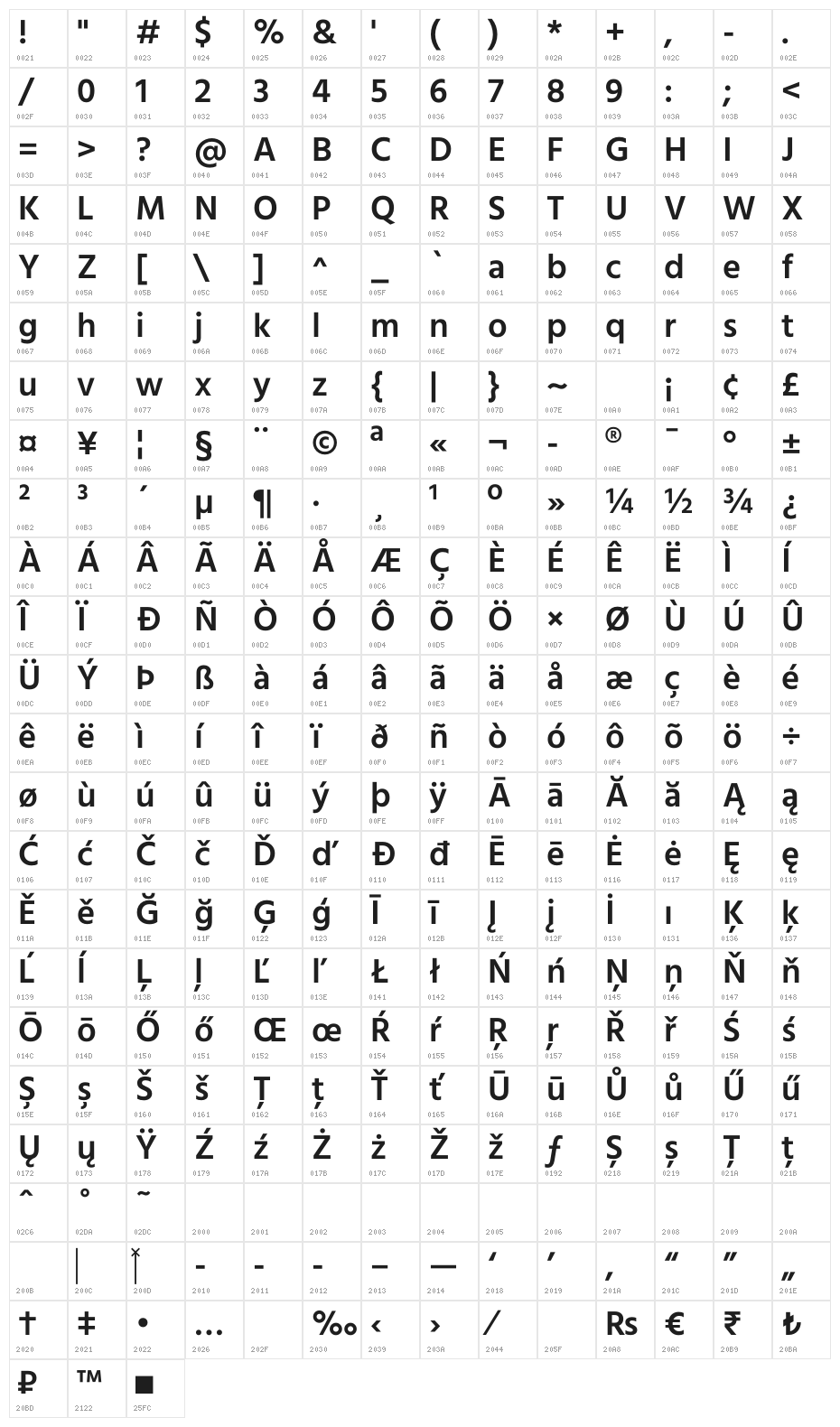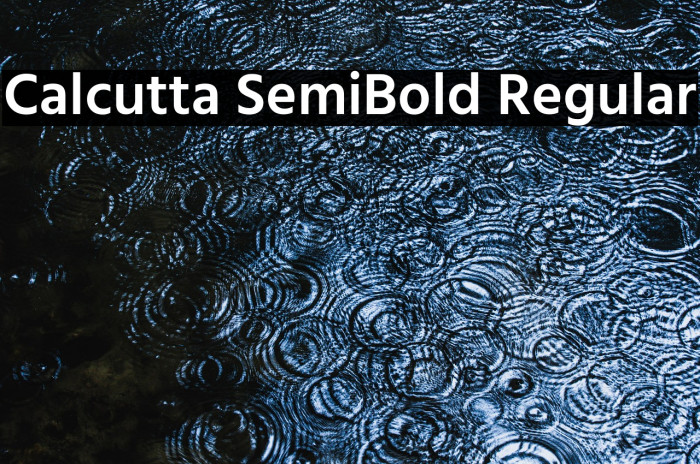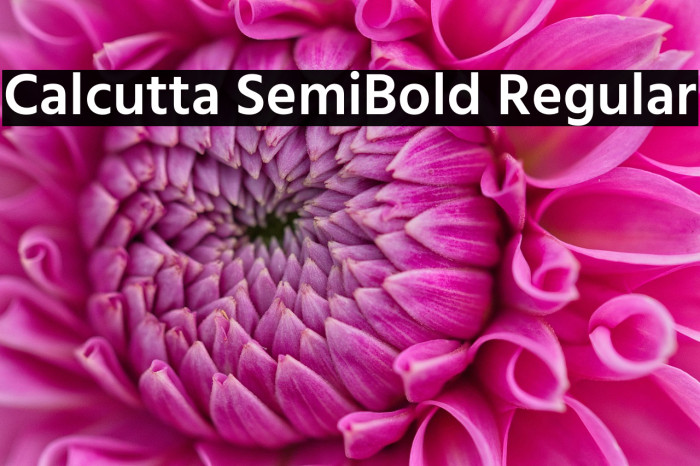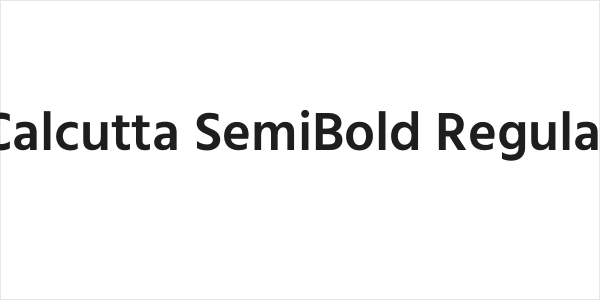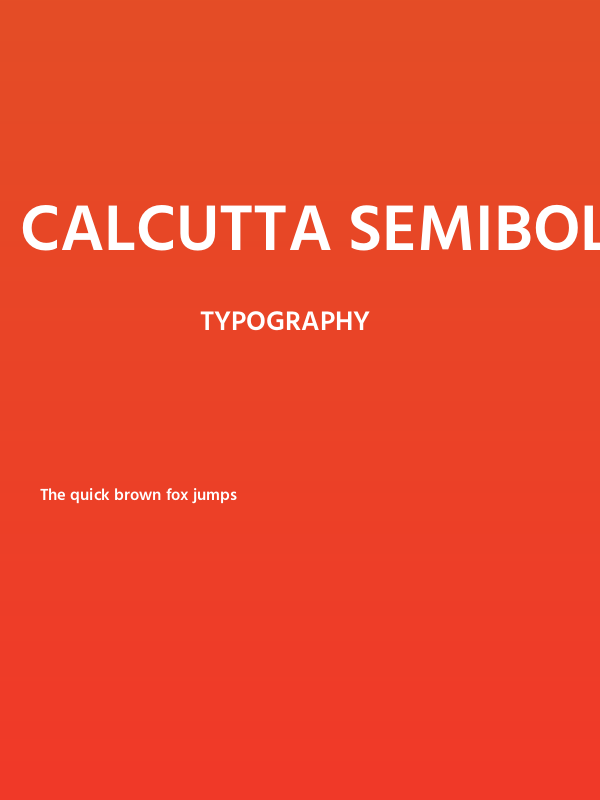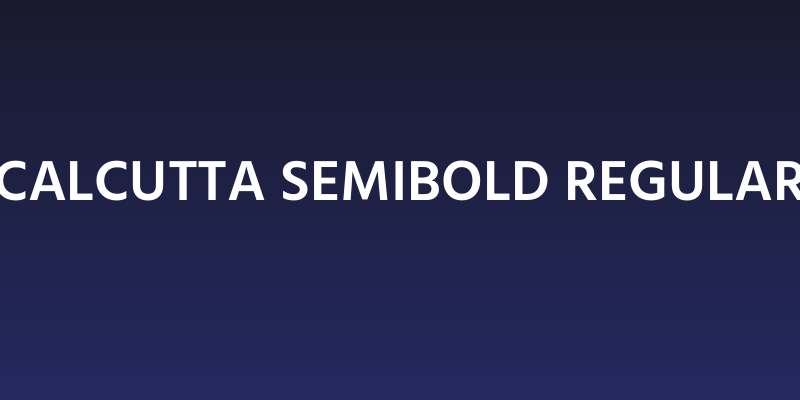
Calcutta SemiBold Regular Font
Calcutta SemiBold Regular Description
This font features a clean and modern sans-serif design with a semi-bold weight, offering a strong presence while maintaining readability. The characters are well-proportioned, with consistent stroke widths that provide a balanced appearance. The uppercase letters are bold and assertive, while the lowercase letters maintain a friendly and approachable feel. Numerals are clear and distinct, making them suitable for both display and text settings. The special characters are well-integrated, ensuring versatility across various applications.
| Proposed Projects | Ideal for branding, advertising, web design, and editorial layouts where a modern and clean look is desired. |